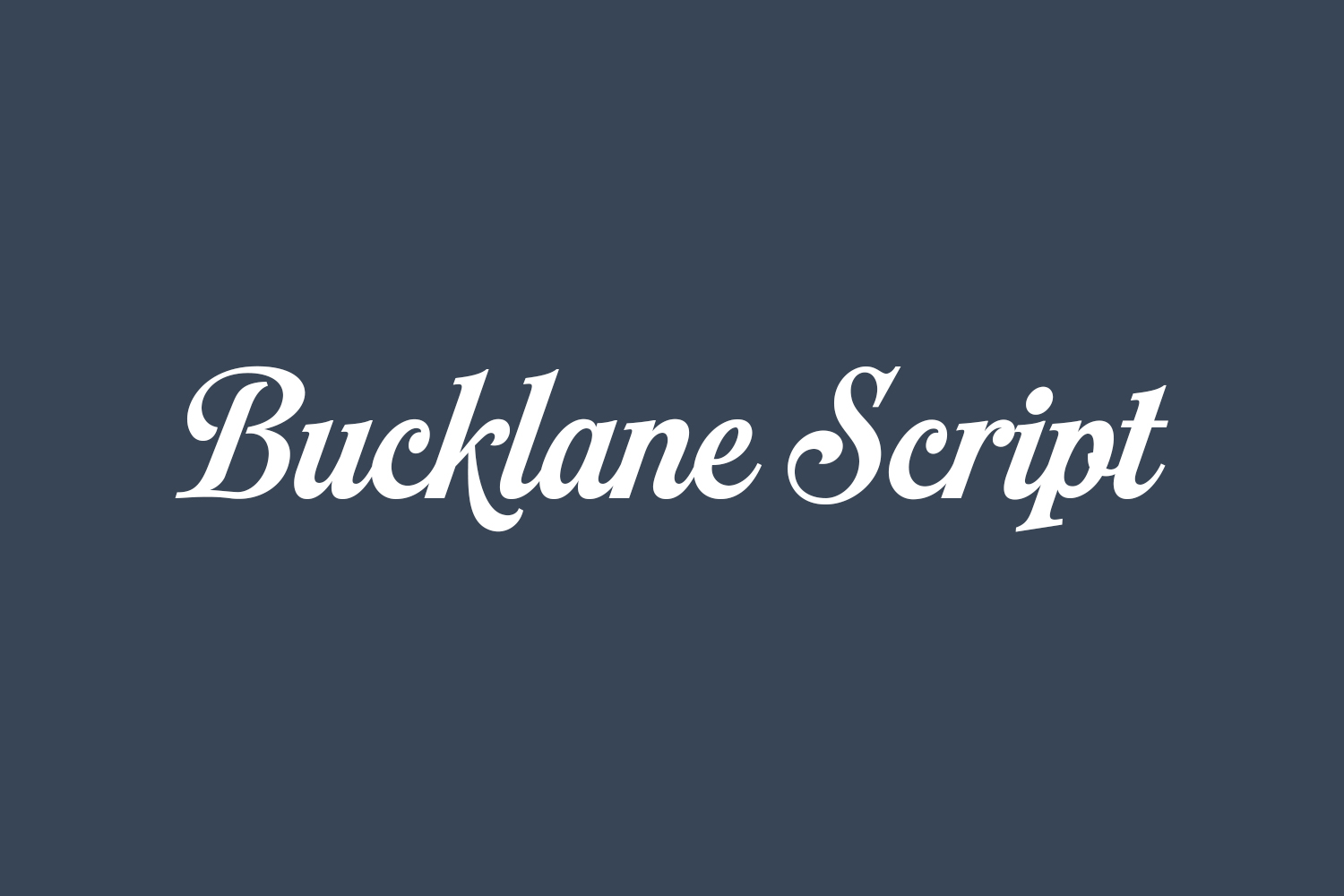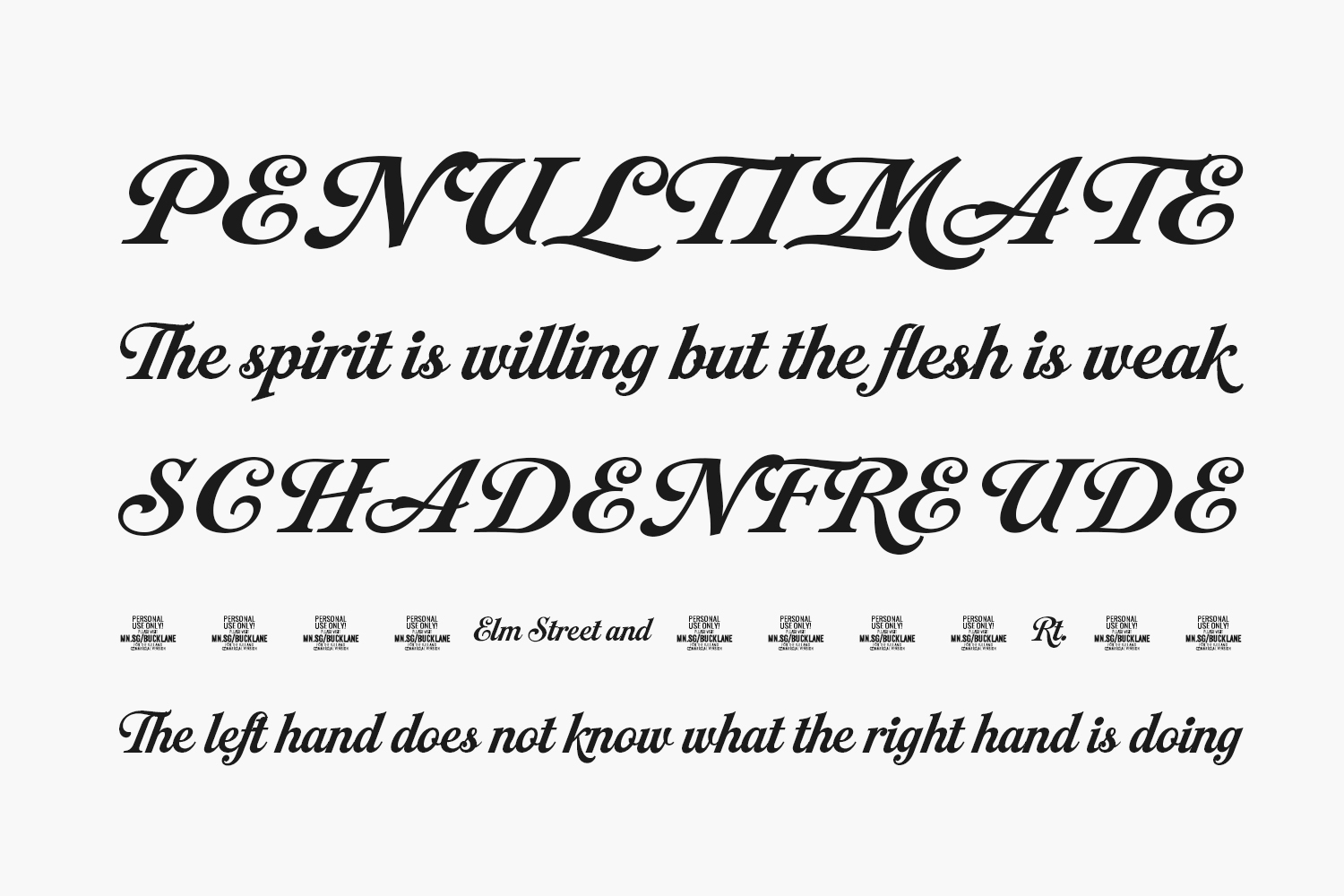
Bucklane Script is a bold and expressive calligraphic typeface designed by Måns Grebäck to bring dramatic flair and timeless elegance to your creative projects. With its thick strokes, sweeping curves, and retro-inspired detailing, this free script font works perfectly for crafting vintage-style logos, signage, whiskey labels, packaging, and more. Available in OTF format — ideal for designers seeking a powerful script font that combines character with readability.
Why Choose Bucklane Script?
- Vintage-Inspired Style: Combines bold letterforms with elegant swashes for a strong yet refined look.
- Ideal for Retro Branding: Perfect for whiskey bottles, boutique shops, or old-school posters needing a nostalgic tone.
Where to Use Bucklane Script?
Bucklane Script shines across a variety of design applications:
- Logos & Branding: Adds personality to brand identities for vintage cafes, record labels, or lifestyle brands with heritage charm.
- Packaging Design: Perfect for product labels on spirits, beer cans, or artisanal goods needing a retro appearance.
- Social Media Graphics: Creates bold text overlays for Instagram Stories, TikTok videos, or Pinterest pins with a throwback vibe.
- Poster & Billboard Design: Designed for high visibility — makes headlines pop in event flyers or outdoor visuals.
- Editorial Headers: Enhances magazine covers, blog headers, and advertising campaigns with a stylish, hand-drawn appeal.
Design Tips with Bucklane Script
- Glyphs: Uppercase (A-Z), numerals, punctuation, and basic special characters.